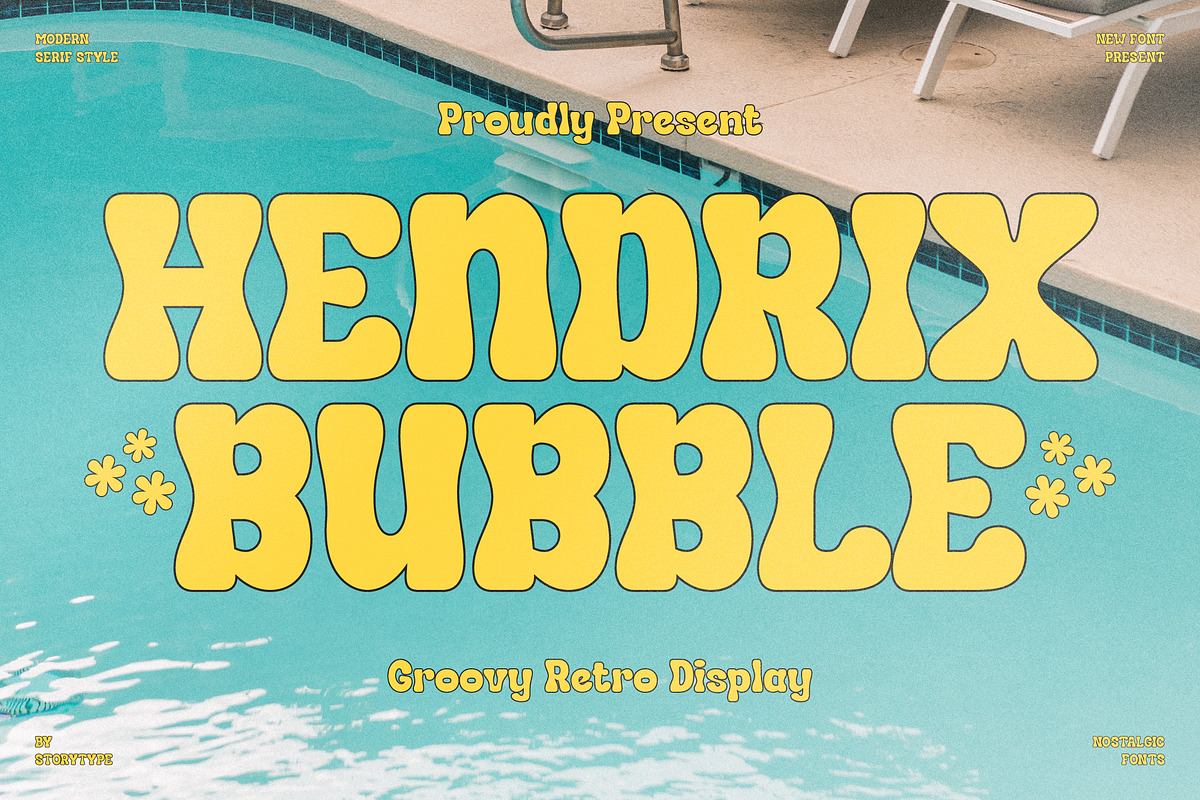
Hendrix Bubble Groovy Retro Display Font Free Download is a fun and bold typeface inspired by the colorful and vibrant styles of the 60s and 70s. With its rounded, bubble-like letterforms and groovy, retro flair, this font is perfect for designs that need a nostalgic, playful, and eye-catching touch, such as event posters, album covers, logos, social media graphics, and more.
Hendrix Bubble Groovy Retro Display Font Free Download combines a lively, energetic look with bold readability, making it ideal for anything that wants to evoke a sense of fun, creativity, and free spirit. Whether you're working on a retro music festival, vintage branding, or any design with a groovy vibe, this font adds a unique, colorful personality.